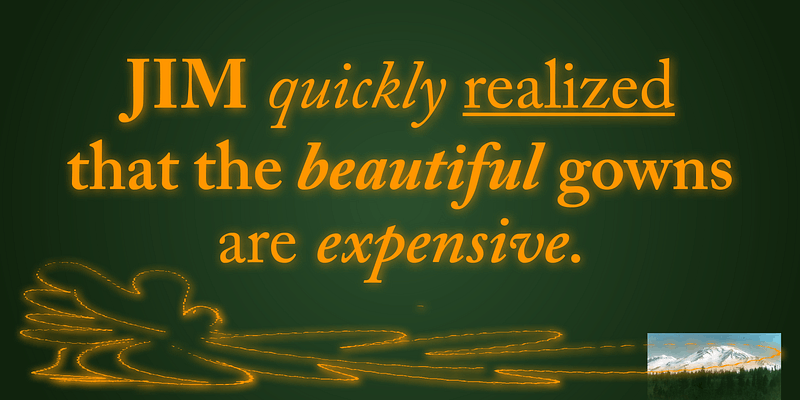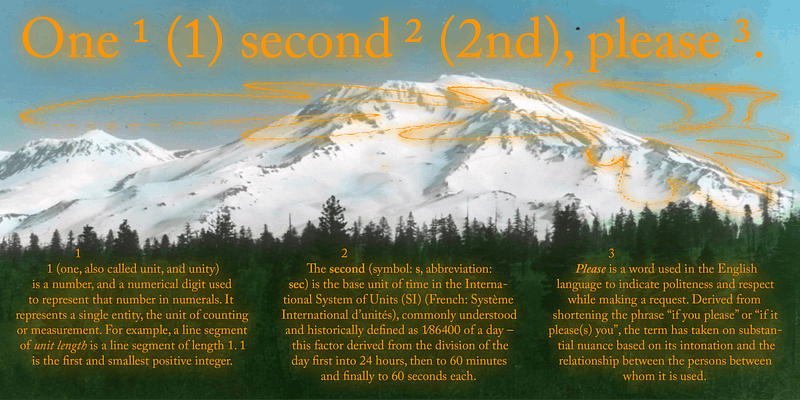
Adobe Caslon
For her Caslon revival, designer Carol Twombly studied specimen pages printed by William Caslon between 1734 and 1770. Adobe Caslon Pro is the right choice for magazines, journals, book publishing, and corporate communications.